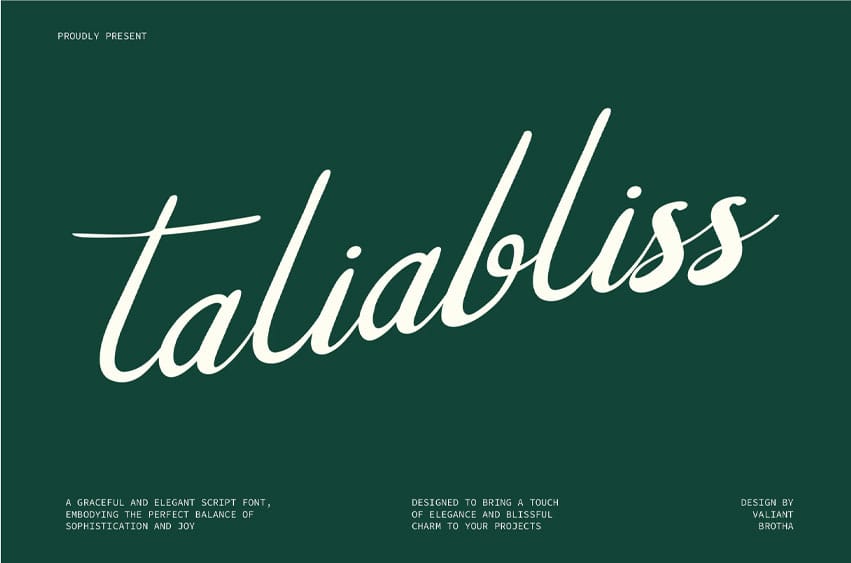
Taliabliss Font is a graceful and elegant script font designed to embody the perfect balance of sophistication and joy. Its smooth and flowing curves evoke a sense of refined beauty, while its charming and joyful style brings a fresh, uplifting touch to any project.